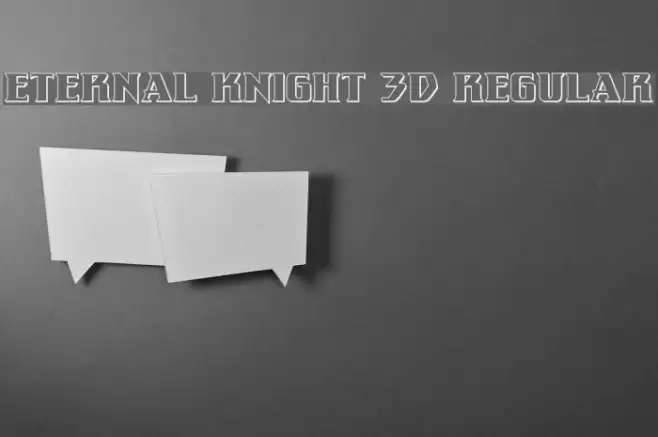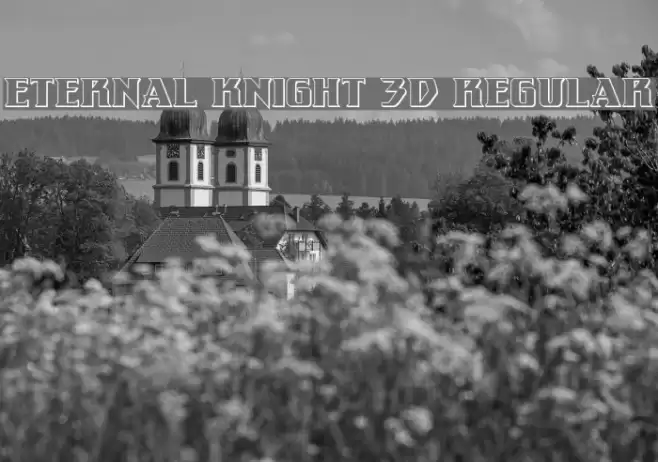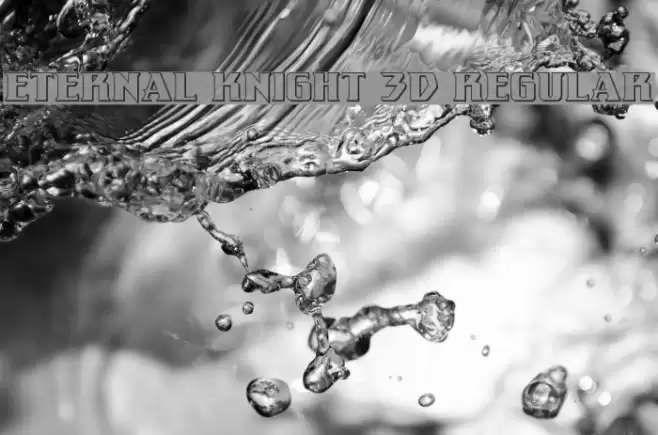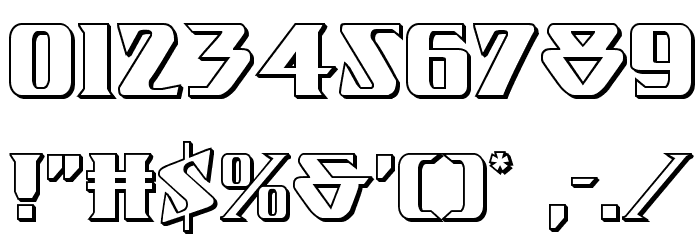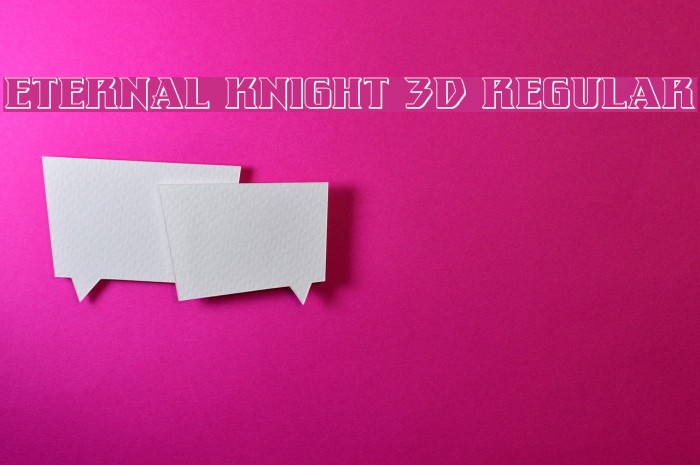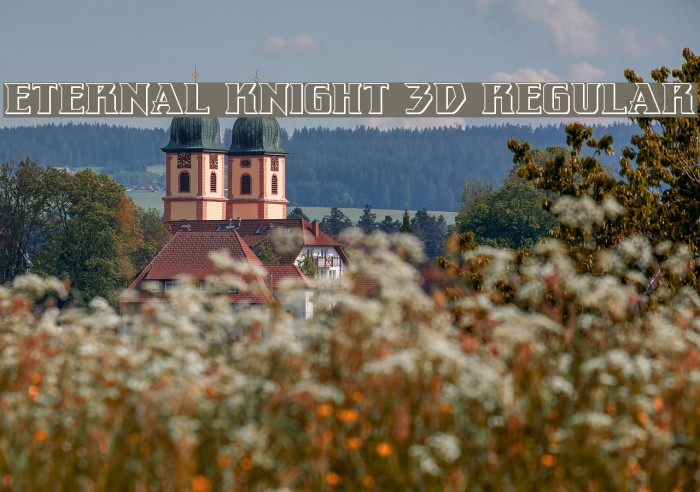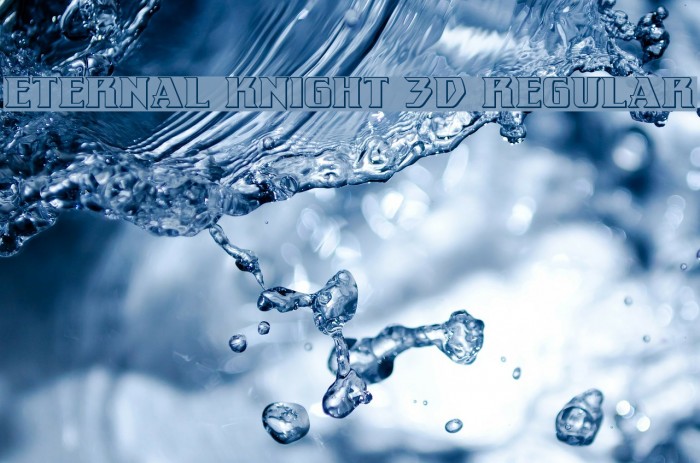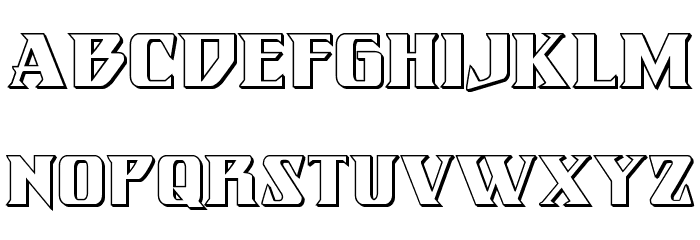
Eternal Knight 3D Regular Font
Eternal Knight 3D Regular Description
This font features a bold, three-dimensional style with a strong, angular design. Each character is outlined, creating a shadow effect that gives the font a sense of depth and solidity. The geometric shapes and sharp edges convey a futuristic and dynamic feel, making it stand out in any design. The uppercase and lowercase letters maintain a consistent style, with the numbers and special characters following the same bold and structured appearance. This font is ideal for projects that require a striking and memorable visual impact.
A bold, 3D font with angular, geometric shapes and a strong, dynamic presence from Uncategorized fonts.
- Proposed Projects: Ideal for video game titles, movie posters, branding for tech companies, and any design needing a futuristic and bold aesthetic.